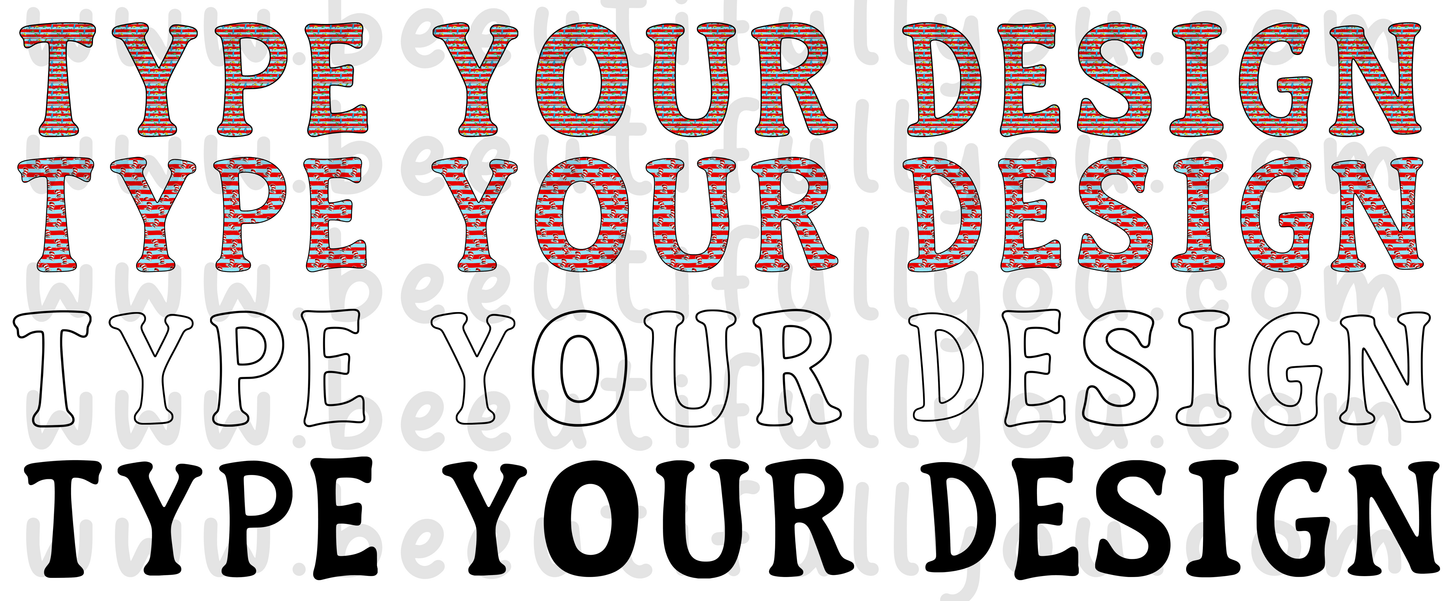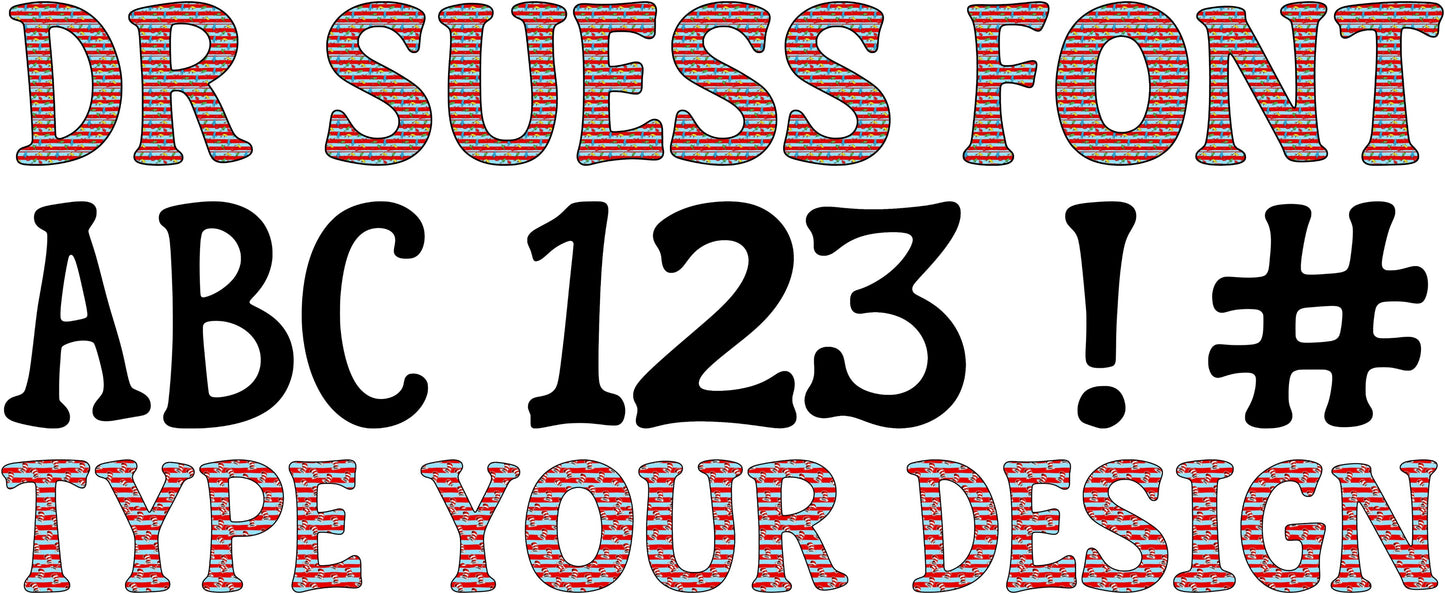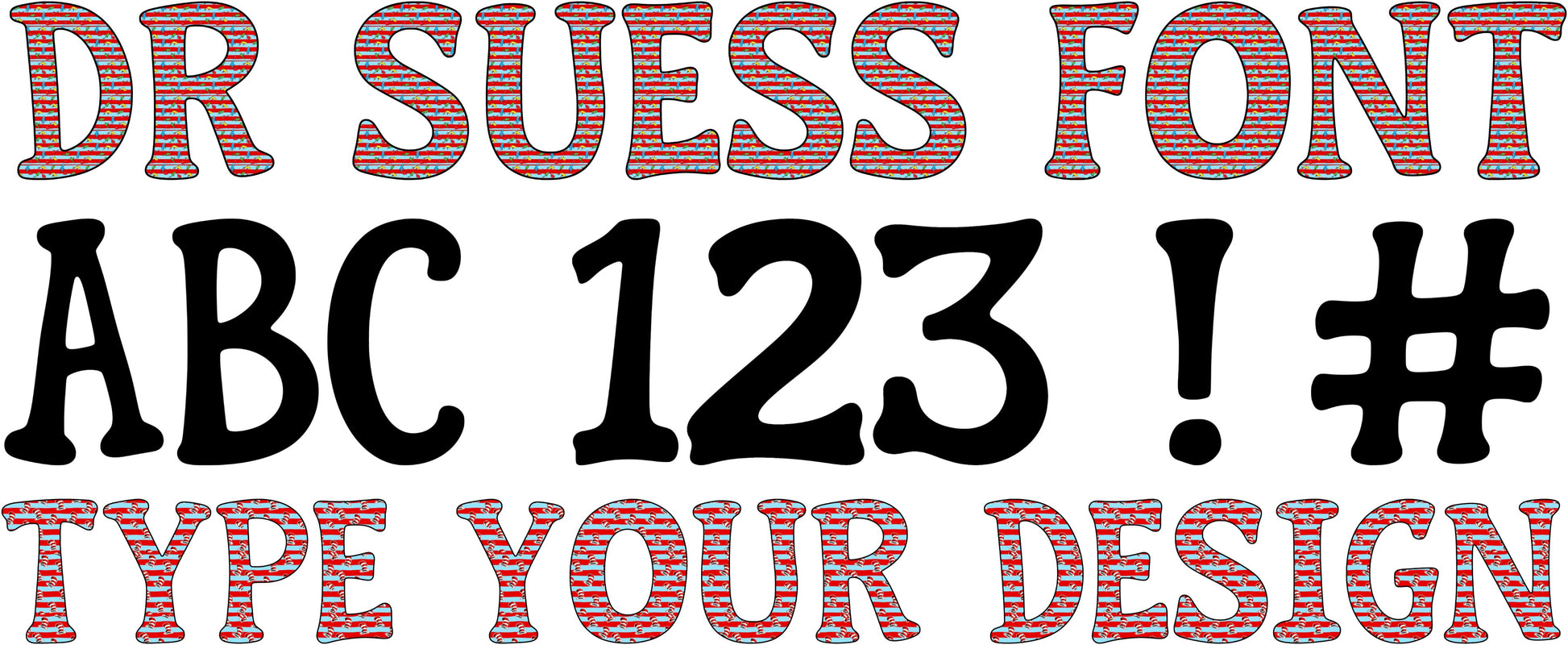
Dr. Suess Inspired Font Bundle | 4 Font Set | Regular, Outline, Fish & Hat Versions | OTF Font Family | Digital Download
ππ DR. SUESS INSPIRED FONT FAMILY BUNDLE ππ
Add playful, whimsical charm to your designs with this fun four-font bundle inspired by the classic storybook aesthetic everyone loves!
Perfect for back-to-school designs, teacher projects, birthday themes, reading graphics, classroom decor, invitations, and creative apparel.
- Regular Font
- Outline Font
- Fish Pattern Font
- Hat Pattern Font
- Uppercase Letters (AβZ)
- Numbers (0β9)
- Basic Symbols & Punctuation